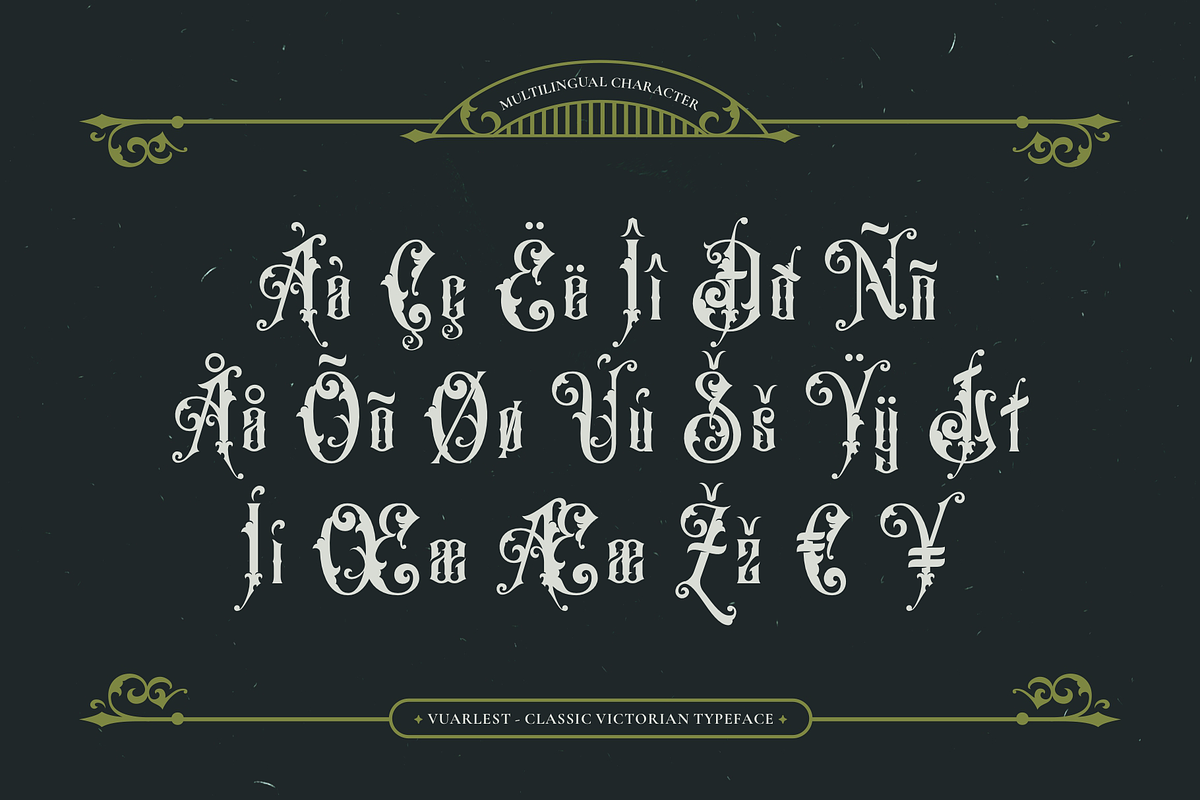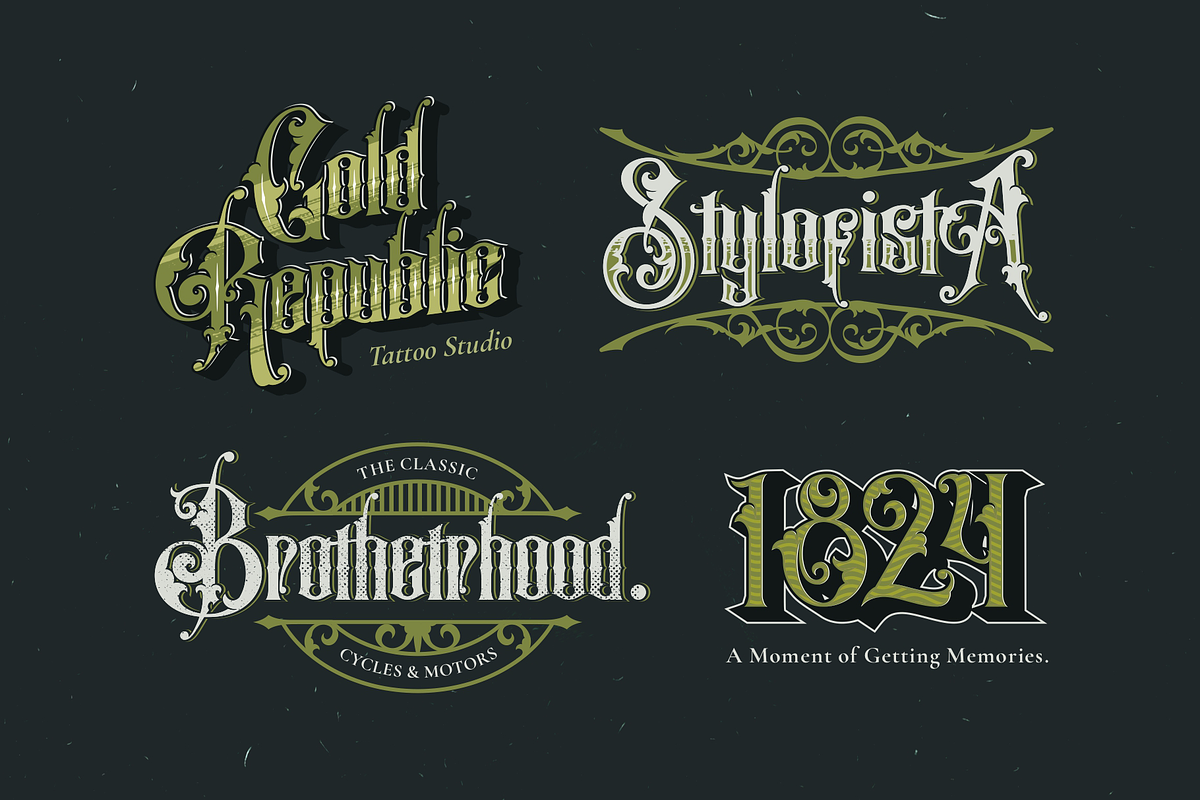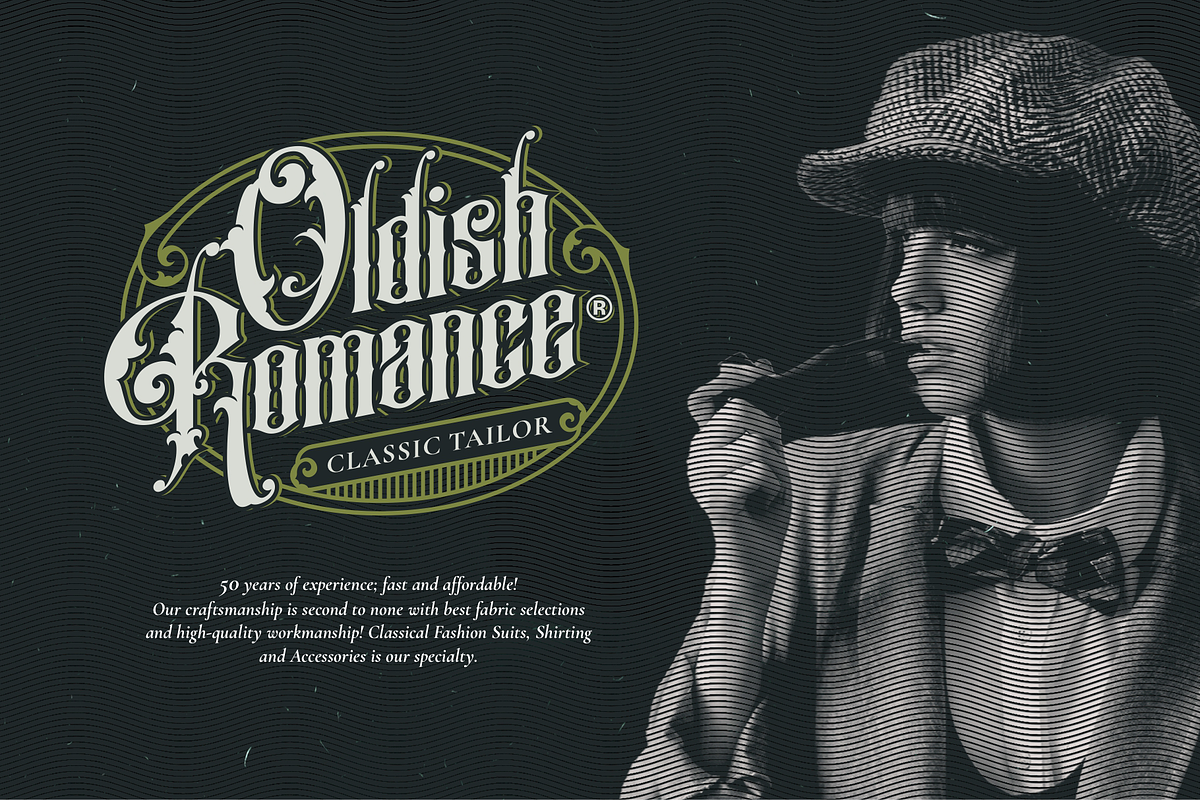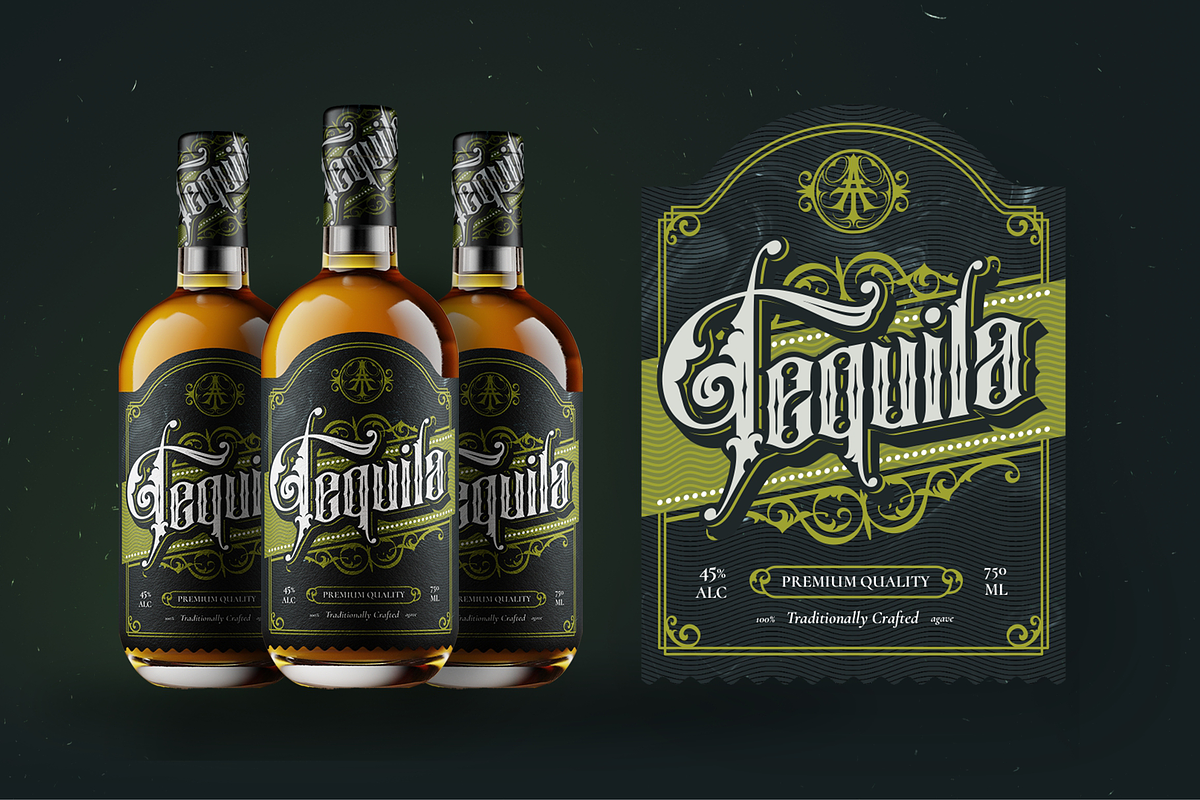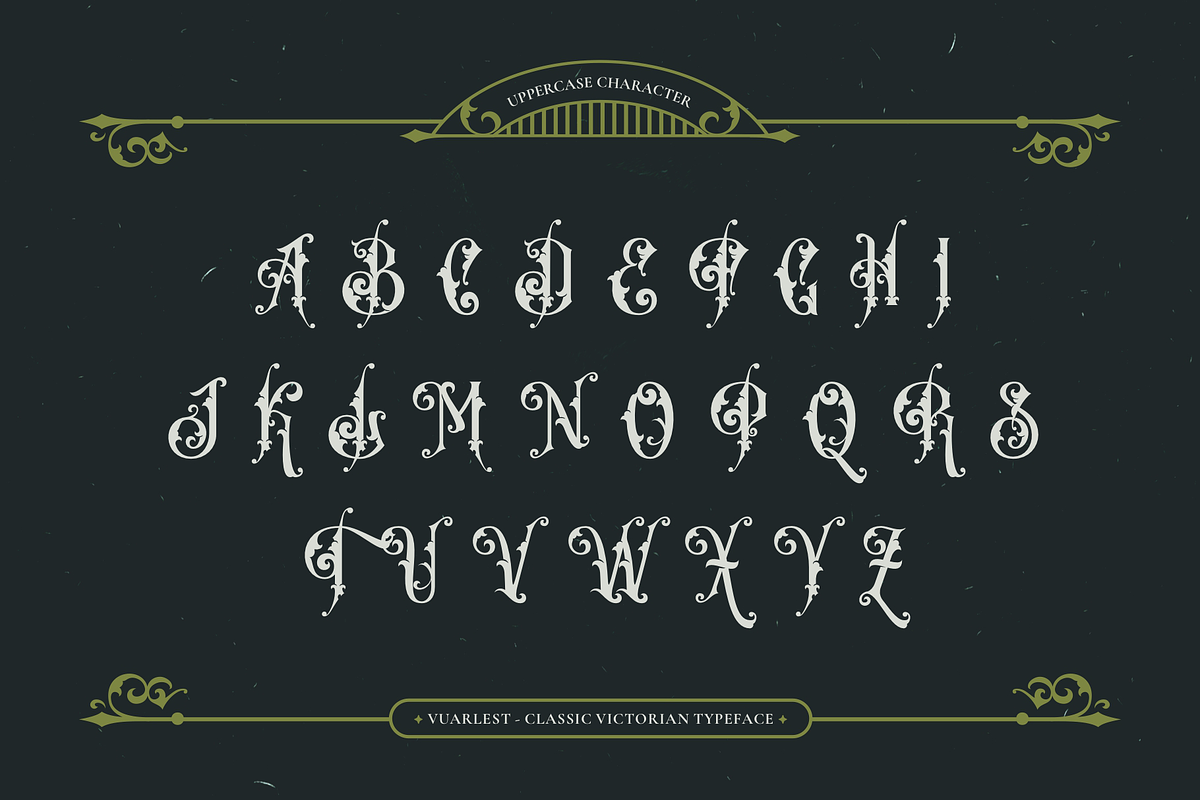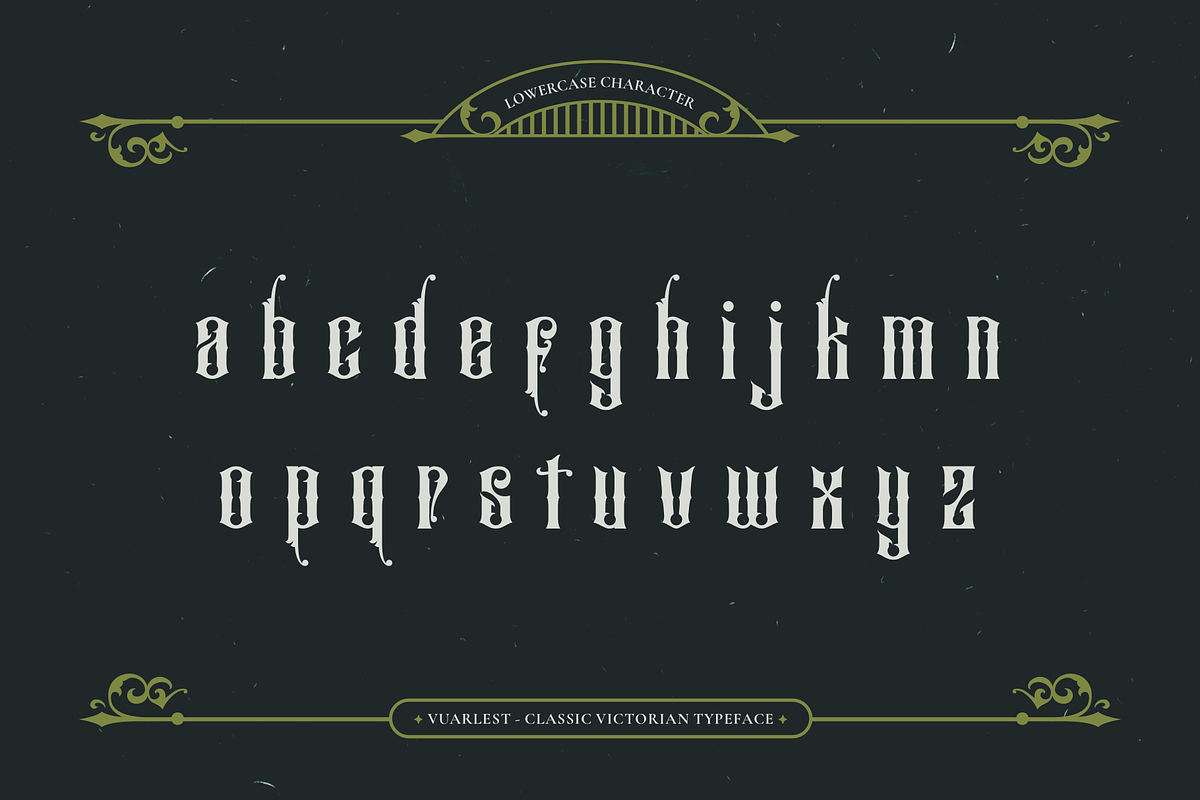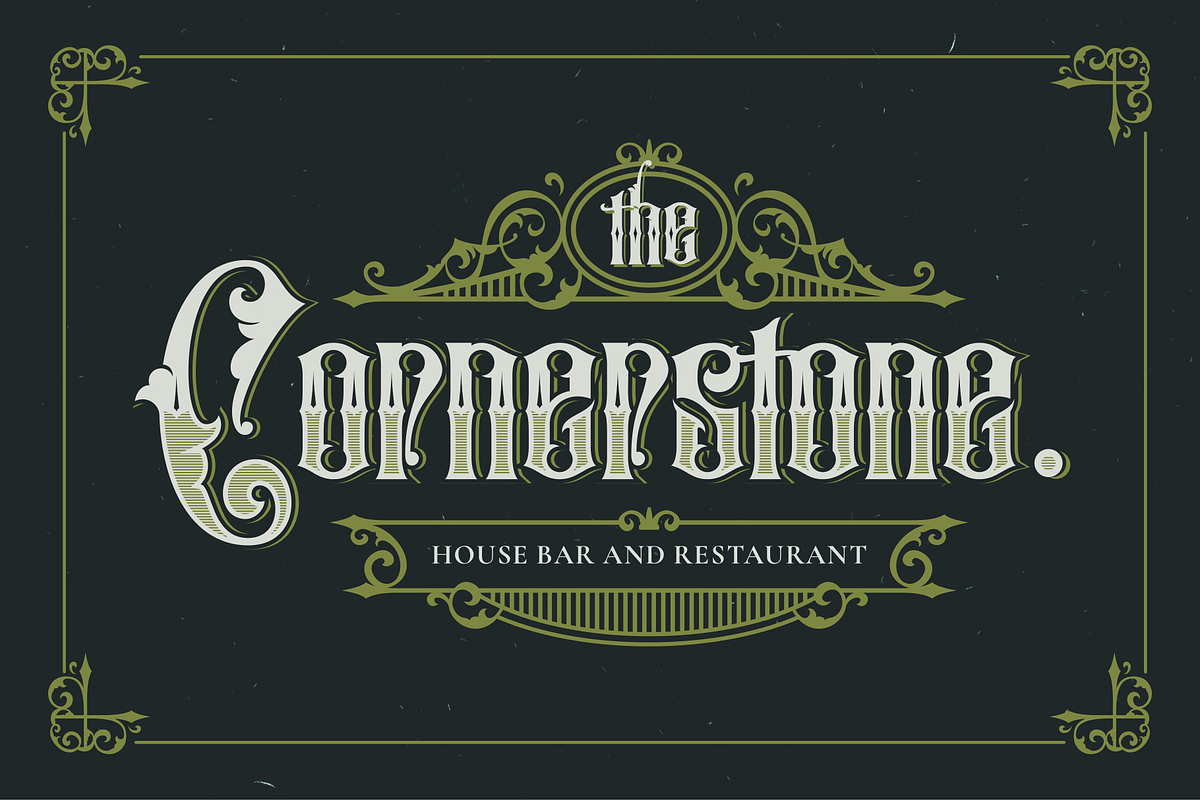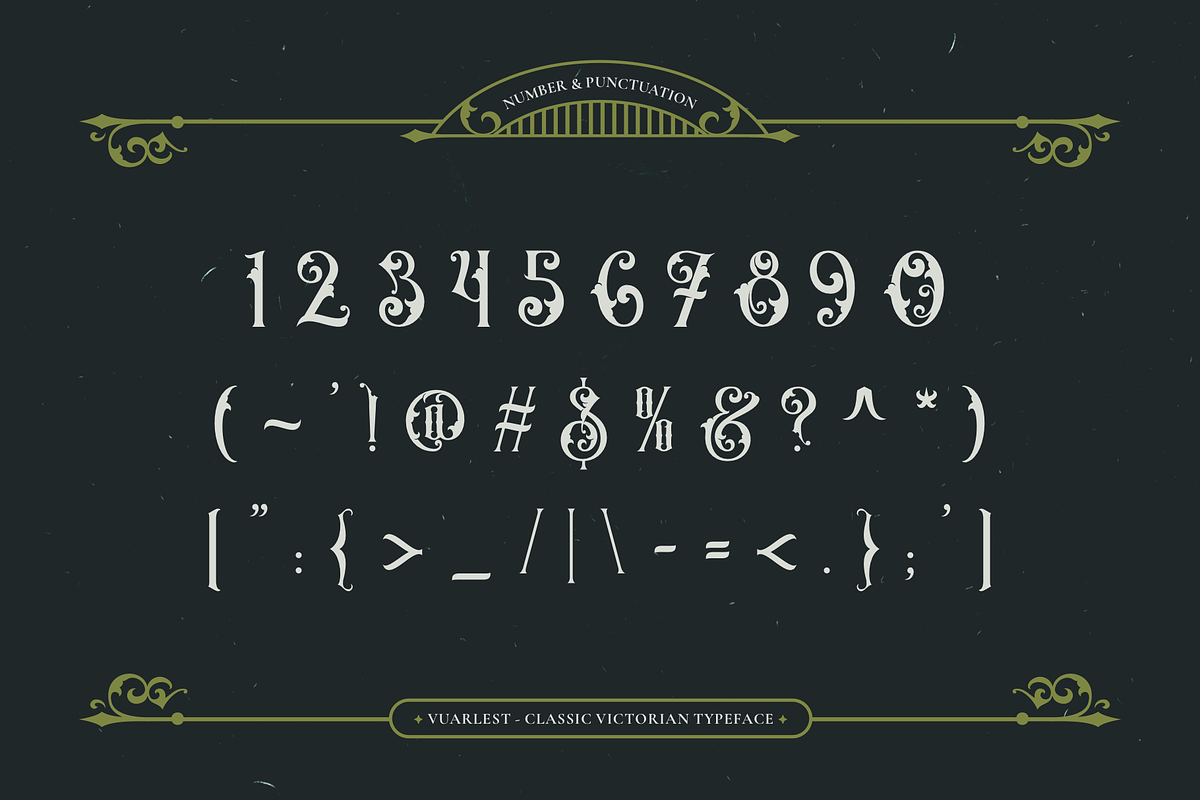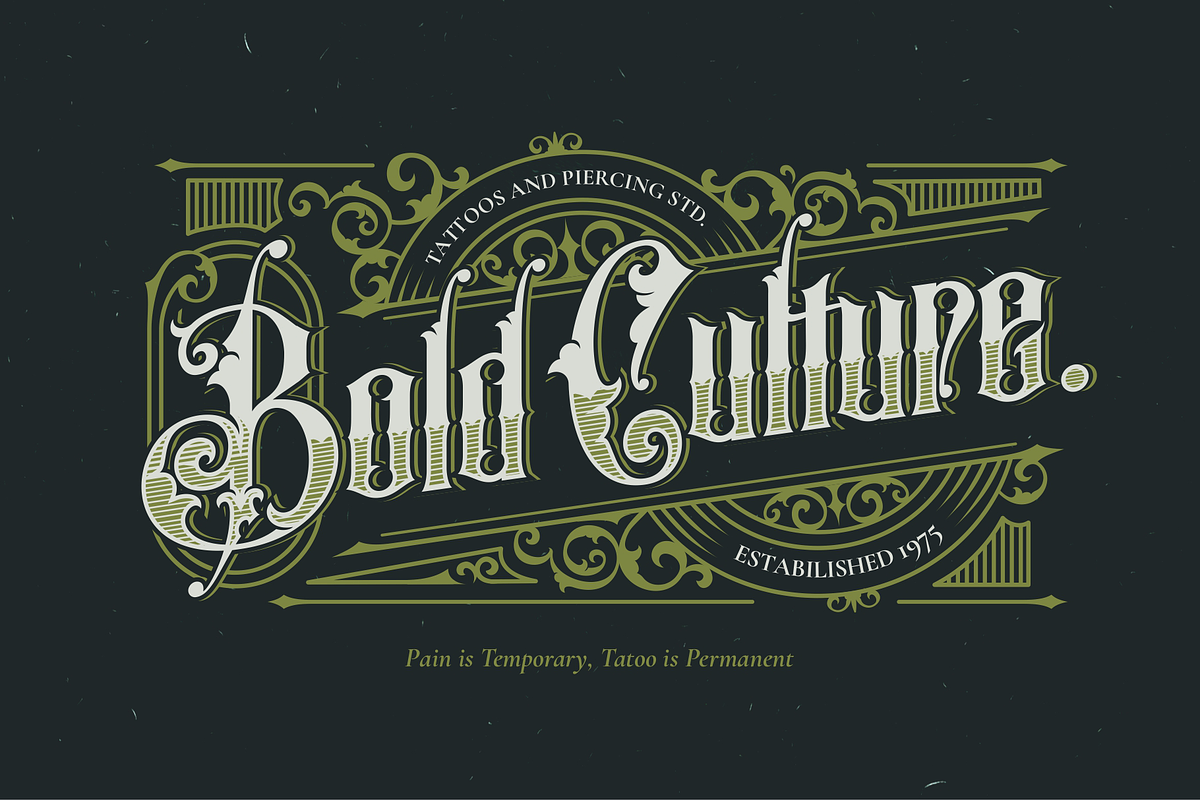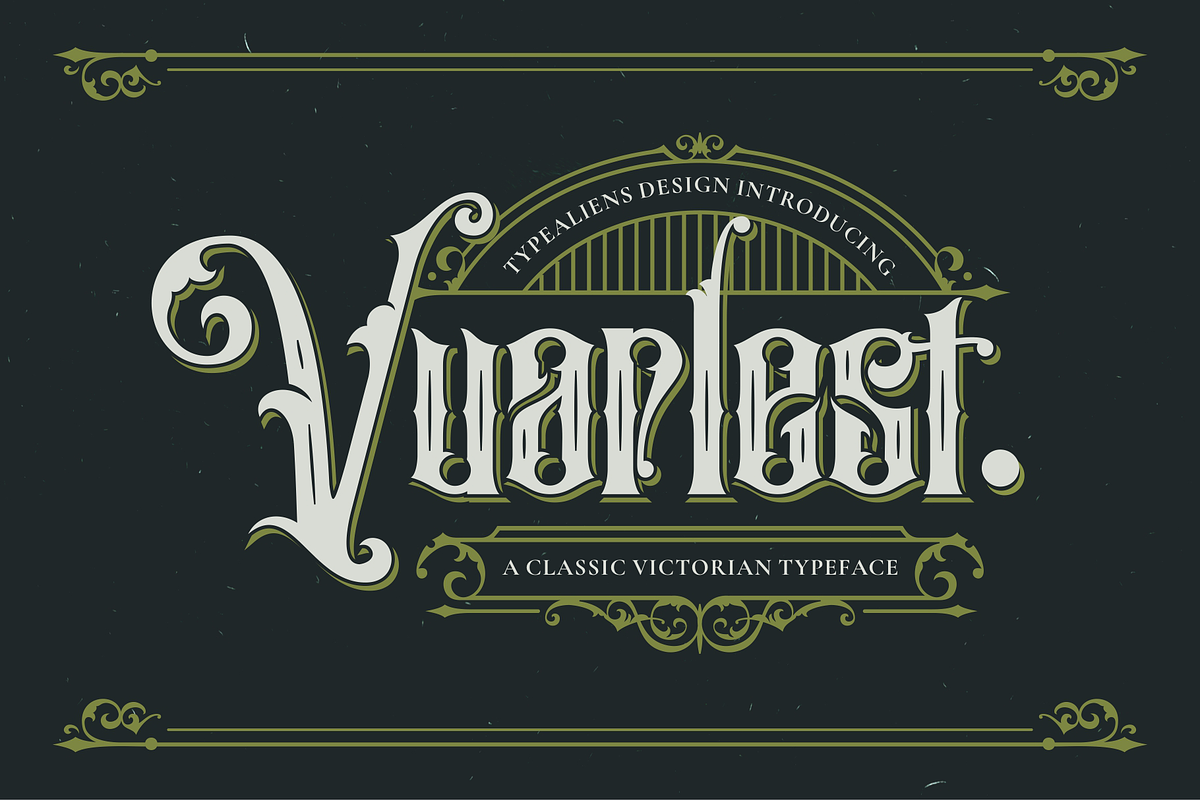
Vuarlest
VUARLEST
Vuarlest is a serif font with a vintage style of Victorian influence. A classic font that matches the vintage layout design combined with abstract leaf or floral ornaments.